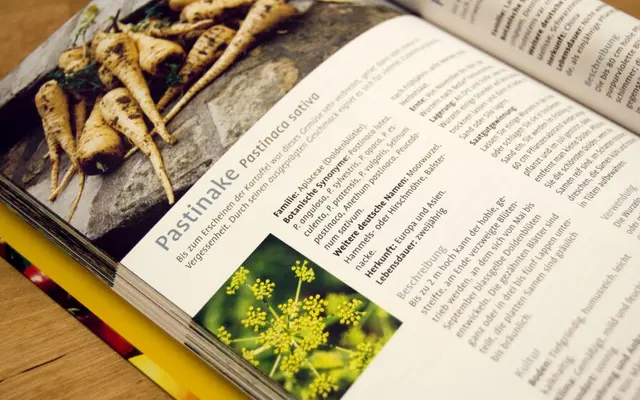
Profile Pro
Supertype · Martin Wenzel
A Berlin-designed humanist sans by Martin Wenzel that traces its roots to Dutch typographic tradition and Renaissance letterforms, built for sustained reading across seven weights.
Designed by Berlin-based Martin Wenzel and shaped by his studies at the Royal Academy in The Hague, Profile Pro sits comfortably alongside Thesis and Proforma in the humanist sans lineage. Its open apertures, two-storey 'g', asymmetric stroke terminals and gently oblique italic give it warmth without informality, making it well suited to text-heavy editorial and corporate publishing work. The Pro version spans seven weights from Thin to Black, each with a matching italic, and covers 180 languages across 1,545 glyphs with a full complement of numeral sets and small caps.
Martin Wenzel designed Profile Pro explicitly within the humanist sans tradition, drawing on Renaissance letterform construction and Dutch typographic influence, with true italics, open apertures, a two-storey 'g', and residual stroke-end details that recall the broad-nib pen.